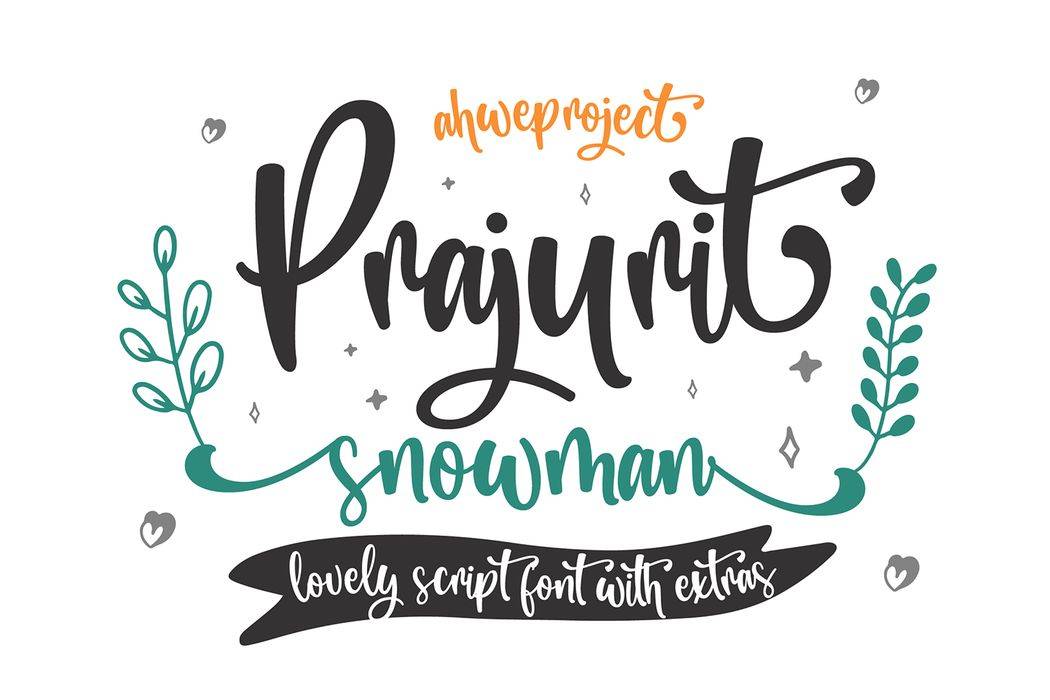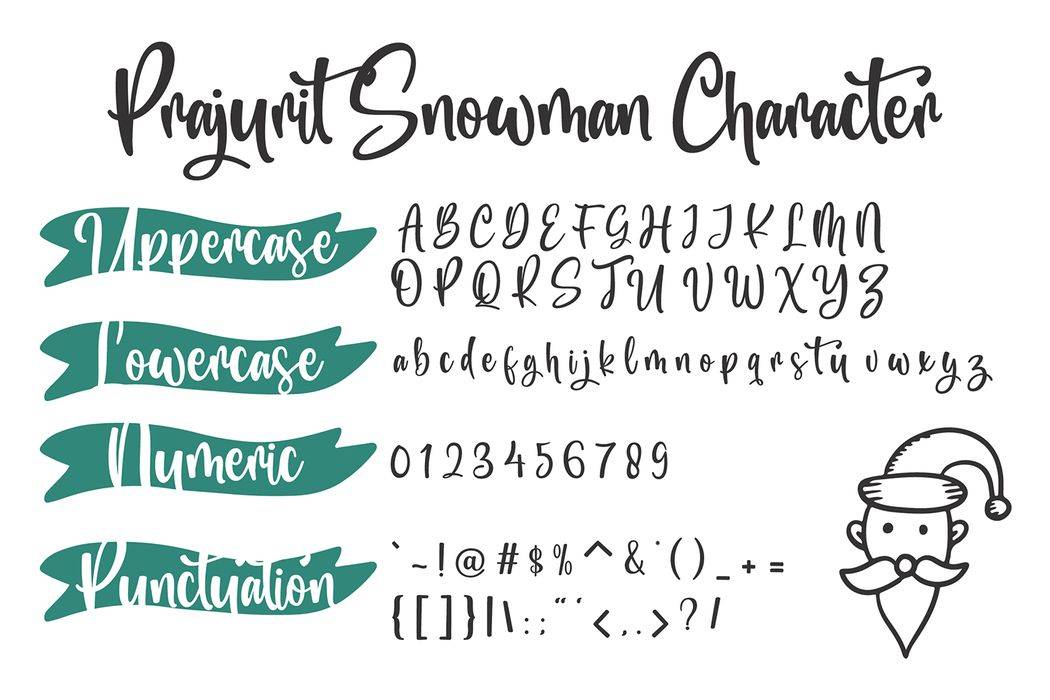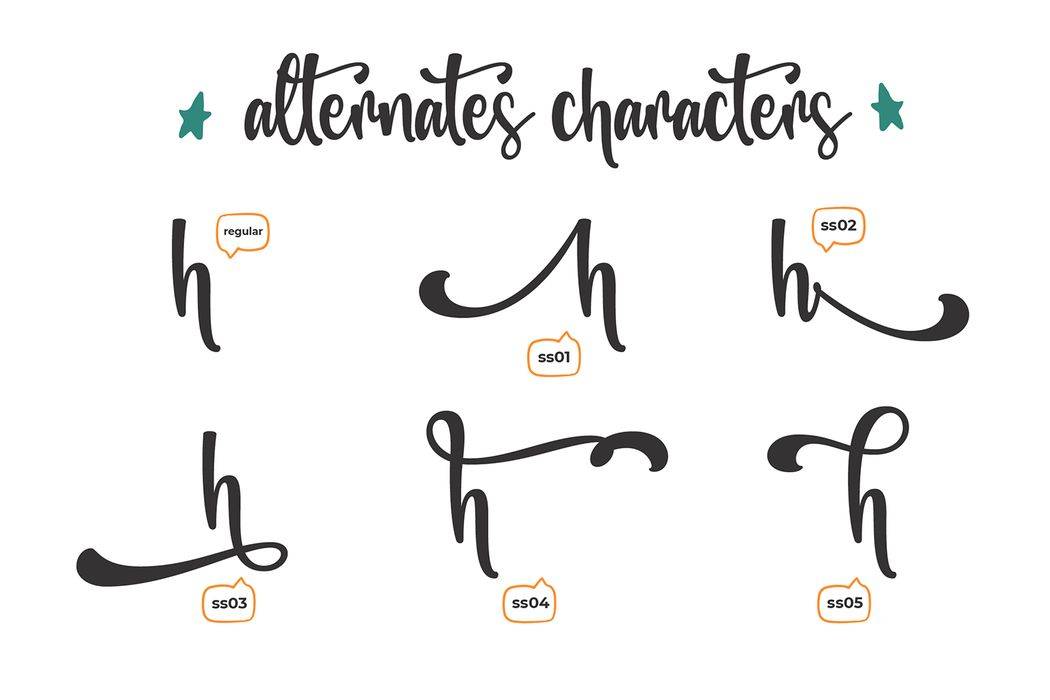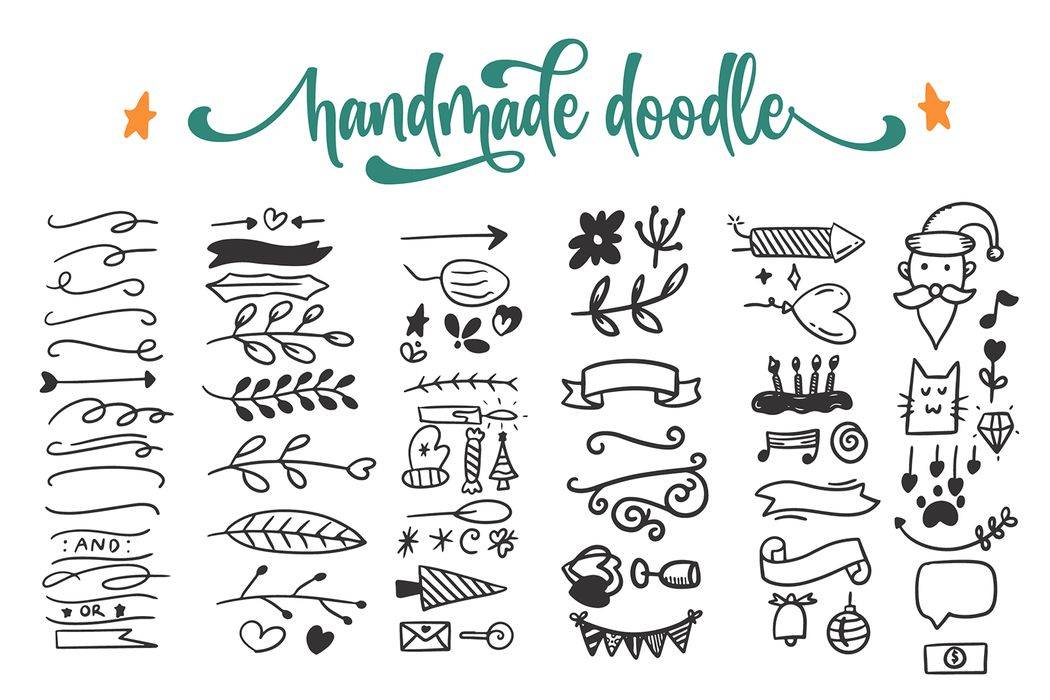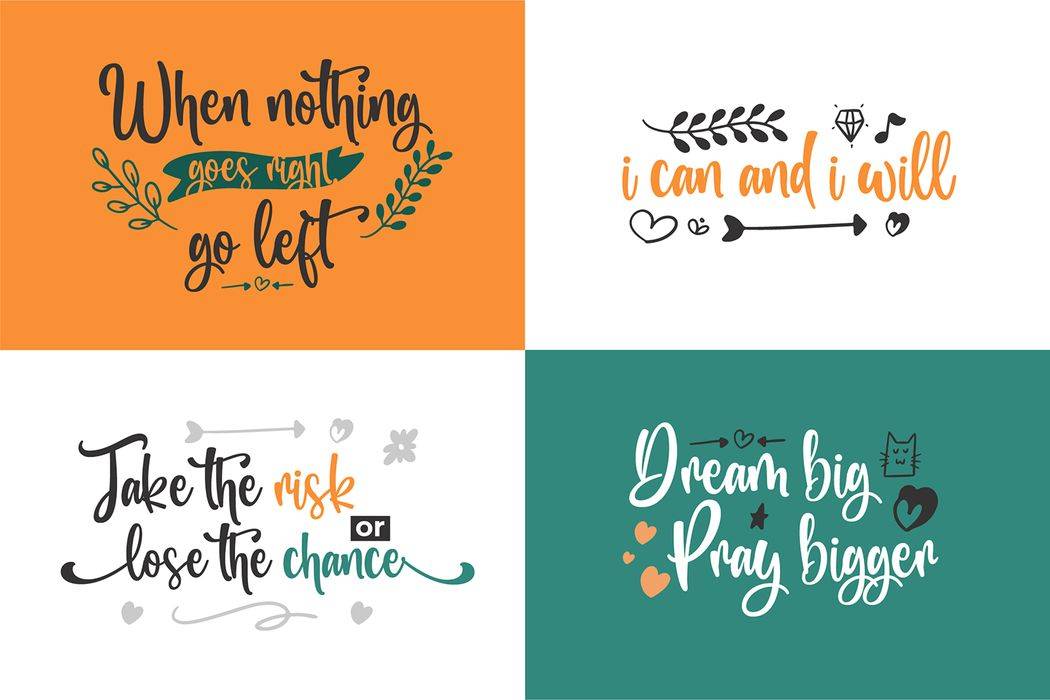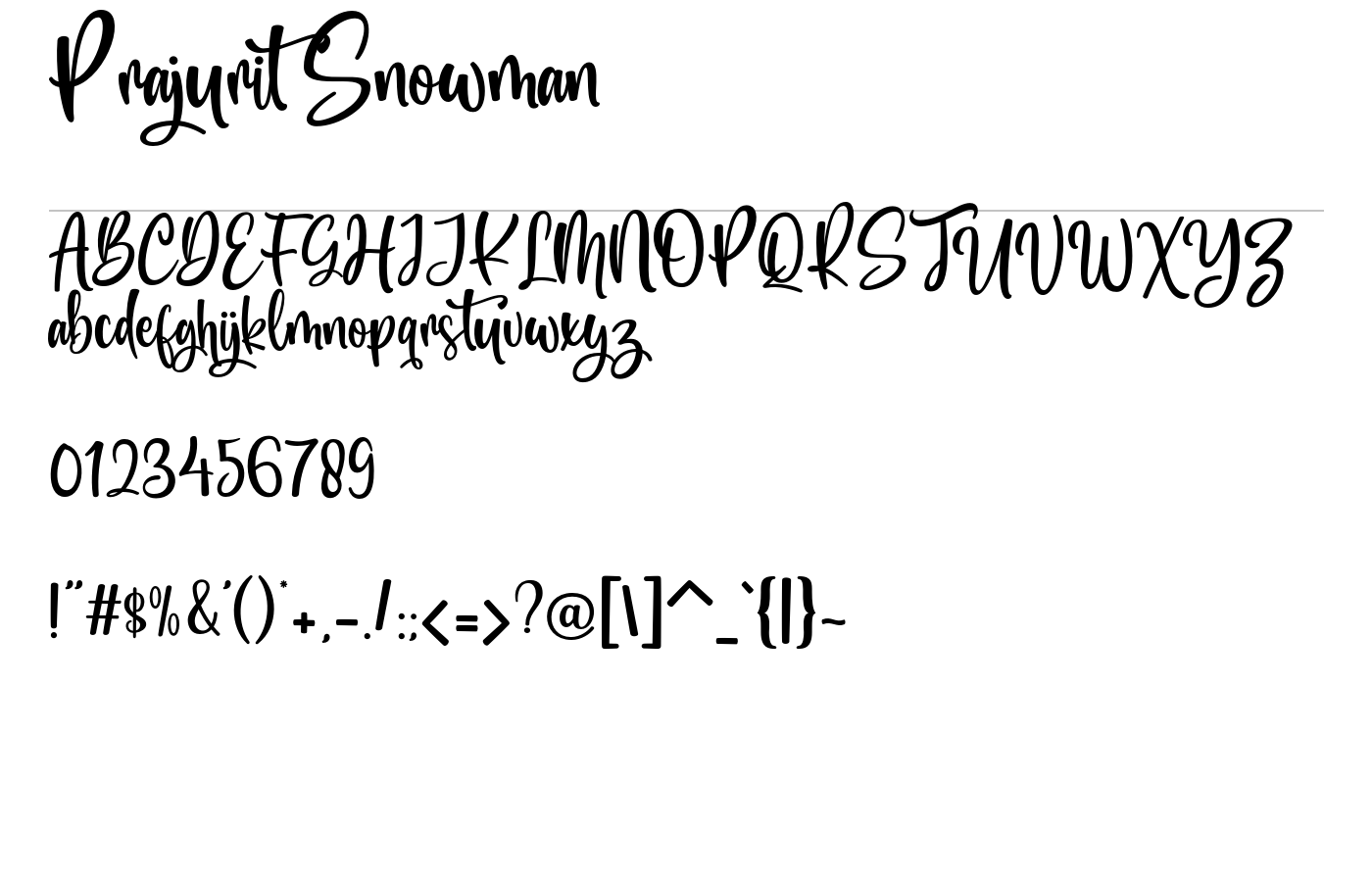
Prajurit Snowman is a lively handwritten script font characterized by its tall, flowing letterforms and casual, brush-like strokes. It features playful, slightly irregular shapes with a strong personality, making it perfect for creative projects, invitations, and branding that seeks a friendly and personal touch. This font works best in headlines and decorative uses where a warm, informal, and engaging vibe is desired.
| Font family | Prajurit Snowman Font |
| Designer | Dida Ahluddin |